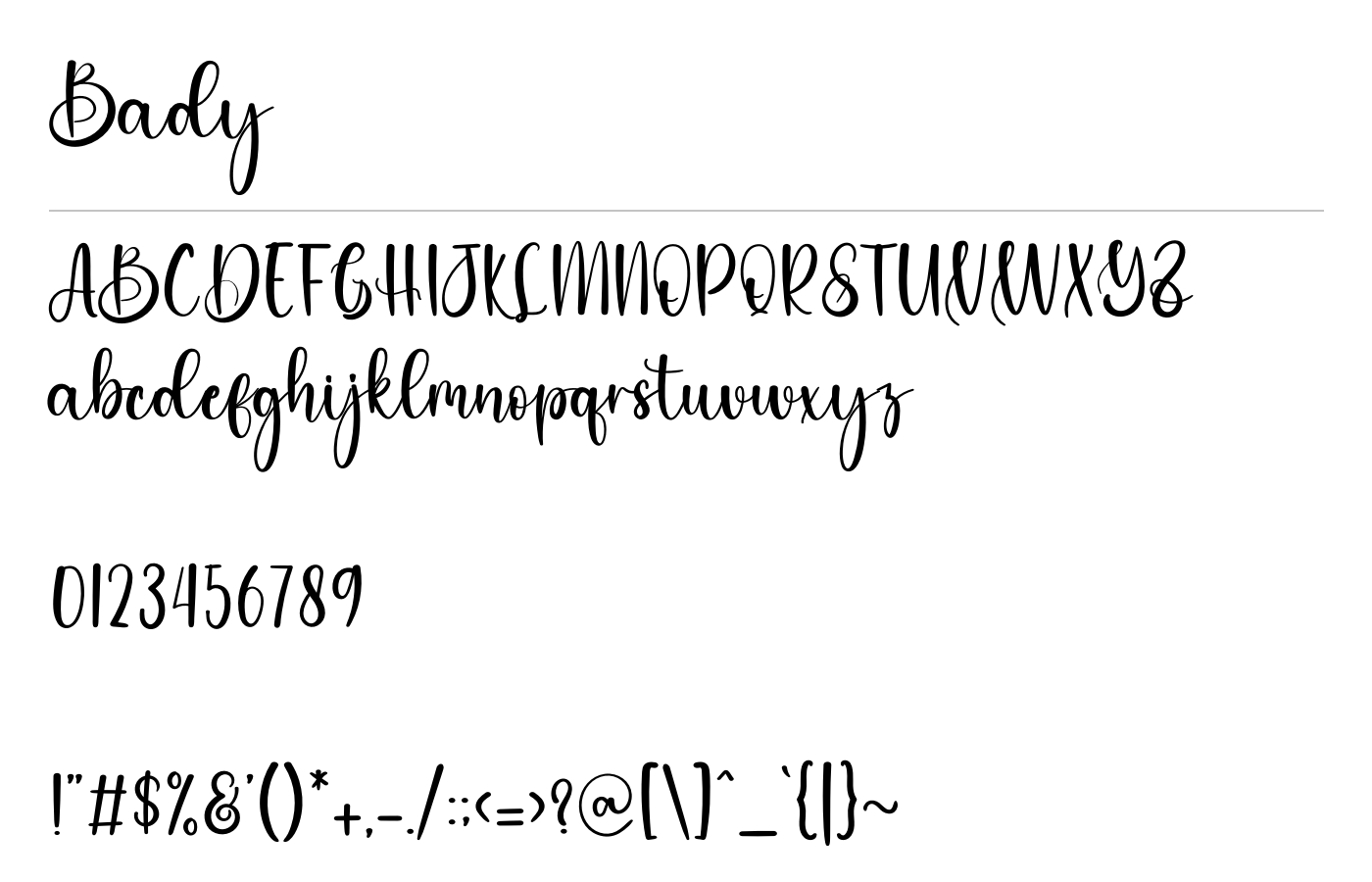
Bady Font is an elegant and playful script typeface with a handwritten feel, featuring tall, slender letterforms with smooth, flowing strokes and unique decorative swashes on some characters. Its lively yet refined style makes it perfect for creative branding, invitations, and feminine or boutique designs where a personal, stylish touch is desired. This font works best in headlines and display uses where its charming personality can truly shine.
Bady Font